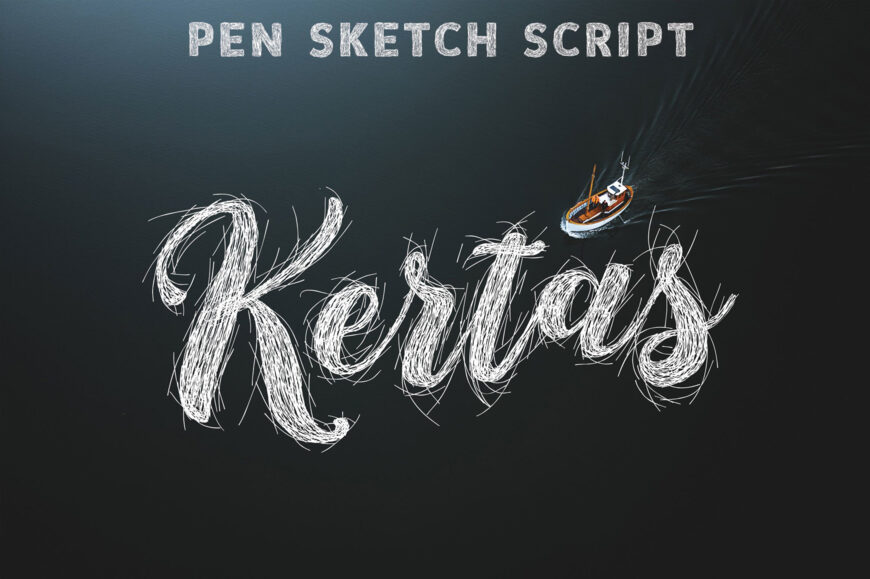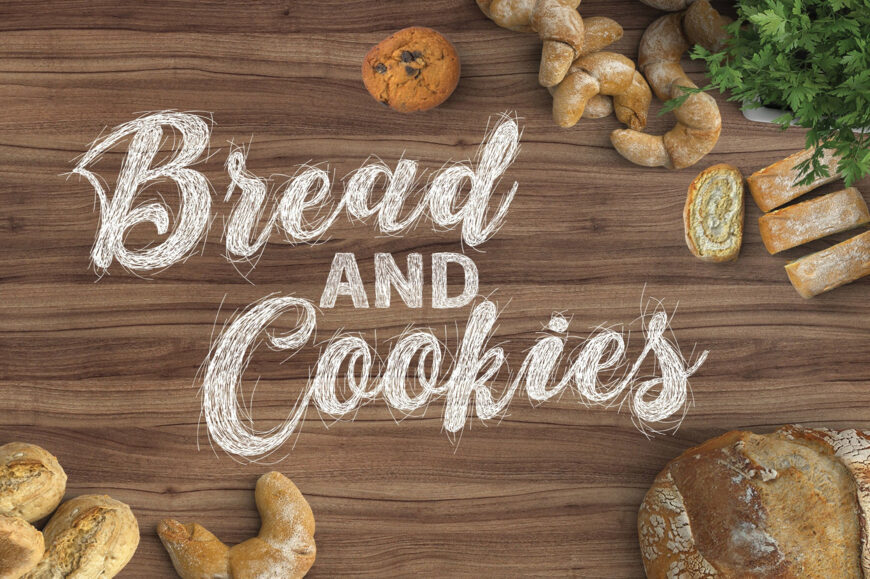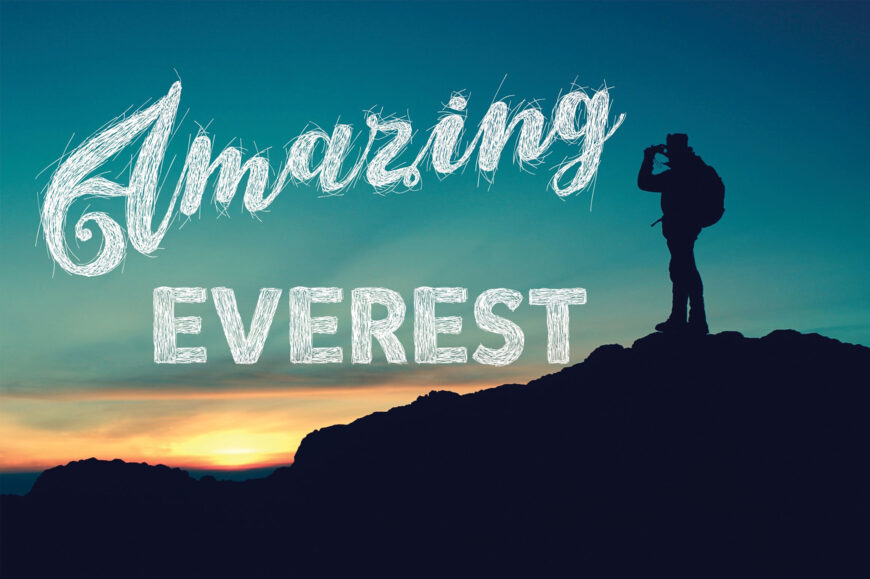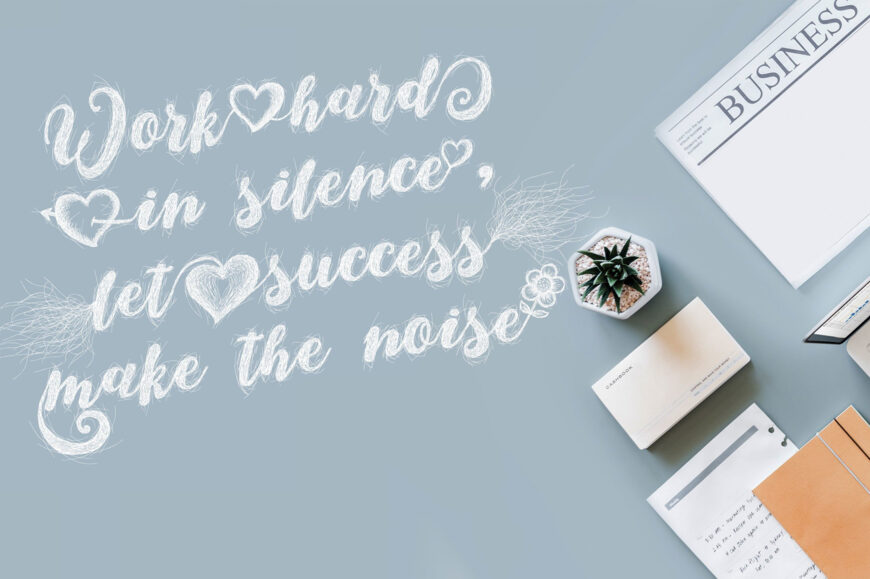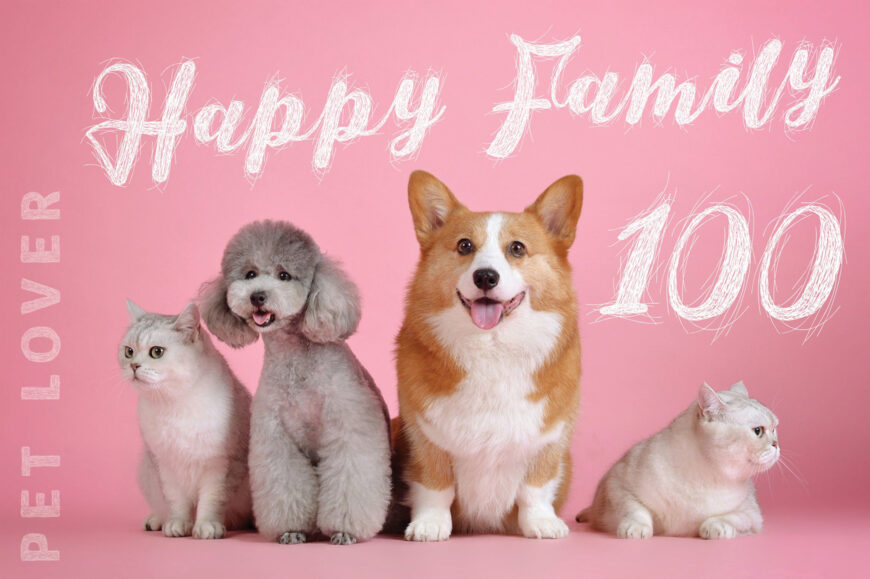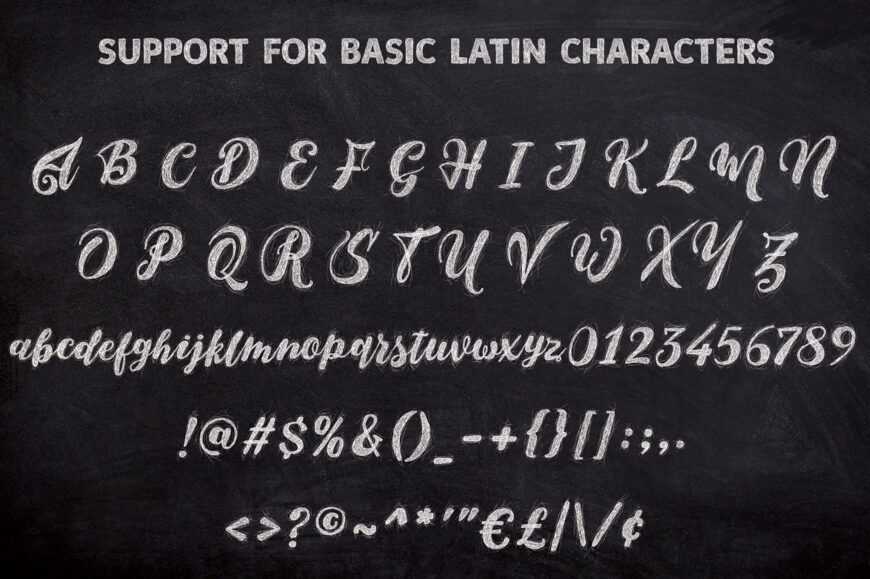
Kertas is a cool and unique, sketch-style handwritten font. Whether you’re using it for crafts, digital design, presentations, or making greeting cards, this font has the potential to become your favorite go-to font, no matter the occasion!